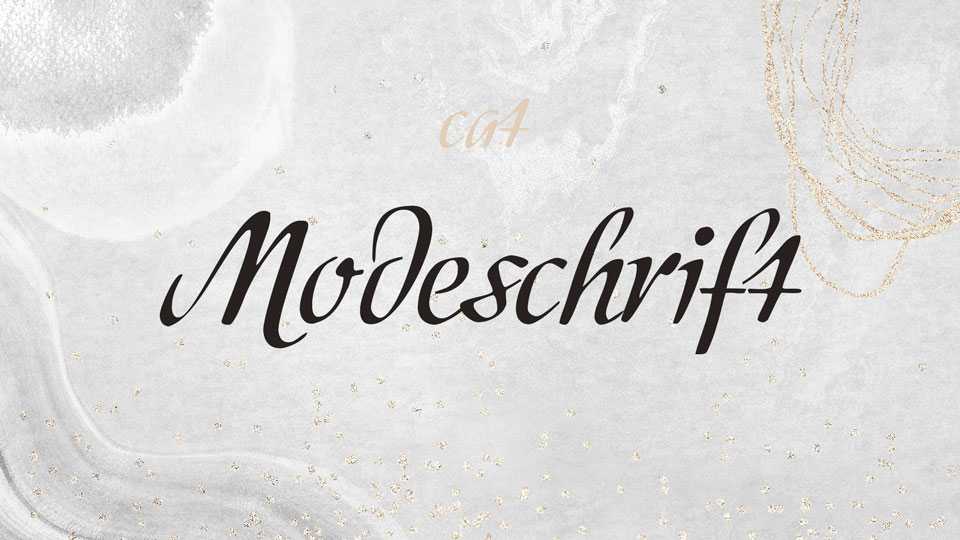
Download Modeschrift font, a hand painted script that impressively represent the typeface design in the German sign painting trade in the middle of the 20th century.